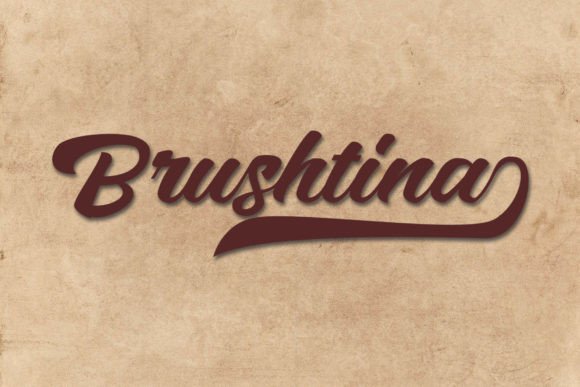
Step into a realm of exquisite typography with Brushtina Brush Font, the ultimate fusion of elegance and creativity. This meticulously crafted font, born from the artistic vision of anomali.bisu, transcends the boundaries of ordinary typography, elevating your designs to new heights. With its perfect balance of sophistication and artistic flair, Brushtina Brush Font is the missing piece to your creative arsenal.
Immerse yourself in the world of branding, logo design, invitations, and social media graphics, where Brushtina Brush Font commands attention like no other. Its flowing brush strokes, reminiscent of an artist's hand, infuse your designs with an organic charm, while its flawless legibility ensures readability even at the most intricate sizes. Whether you're a seasoned designer or just starting your creative journey, this versatile font is your gateway to typographic brilliance.
Explore the boundless possibilities of print and digital media with Brushtina Brush Font, the font that seamlessly adapts to your every need. Its versatility knows no bounds, captivating audiences across a multitude of platforms. Join the ranks of designers, artists, and creatives who have discovered the transformative power of Brushtina Brush Font, and unlock the artistic potential of your projects.
Unleash the allure of this one-of-a-kind font and elevate your designs to a whole new level of brilliance. Embrace the captivating charm of Brushtina Brush Font and experience the seamless blend of elegance and creativity it offers. As a font meticulously designed to meet the demands of modern design, Brushtina Brush Font is your key to unlocking typographic excellence. Don't let this opportunity pass you by - seize the artistic power of Brushtina Brush Font today!